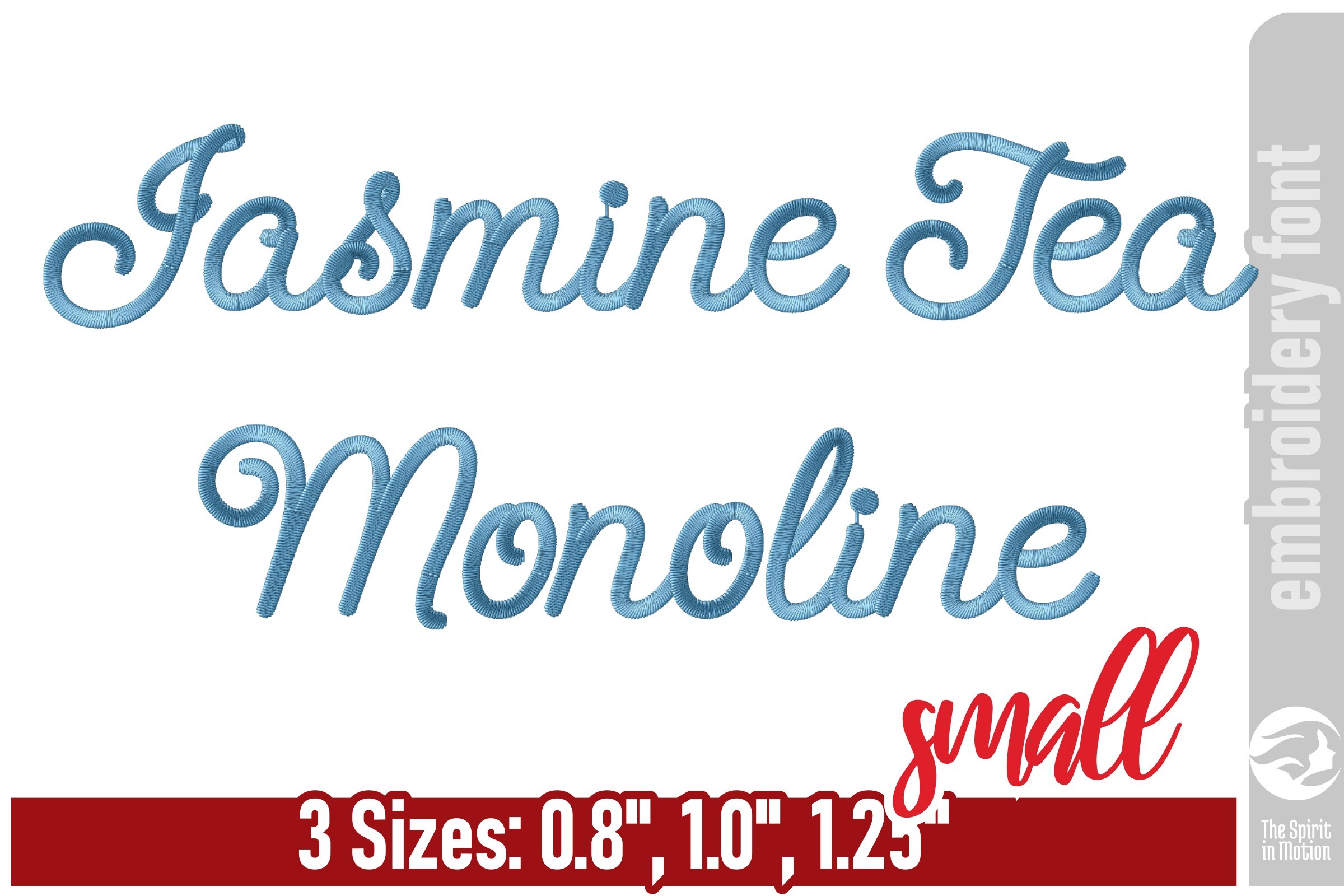
Jasmine Tea Monoline Embroidery Font - S
Discover the delicate balance of modern minimalism and classic charm with Jasmine Tea Monoline, a premium monoline script font designed for high-end embroidery. Featuring a consistent, slender stroke weight and whimsical, rounded curls, this font captures a hand-drawn “thread-like” aesthetic that feels both personal and polished. Its clean, continuous pathing is specifically engineered for a smooth, efficient stitch-out, making it the perfect choice for fine detailing on heirloom handkerchiefs, silk pillowcases, boutique labels, and elegant wedding favors.